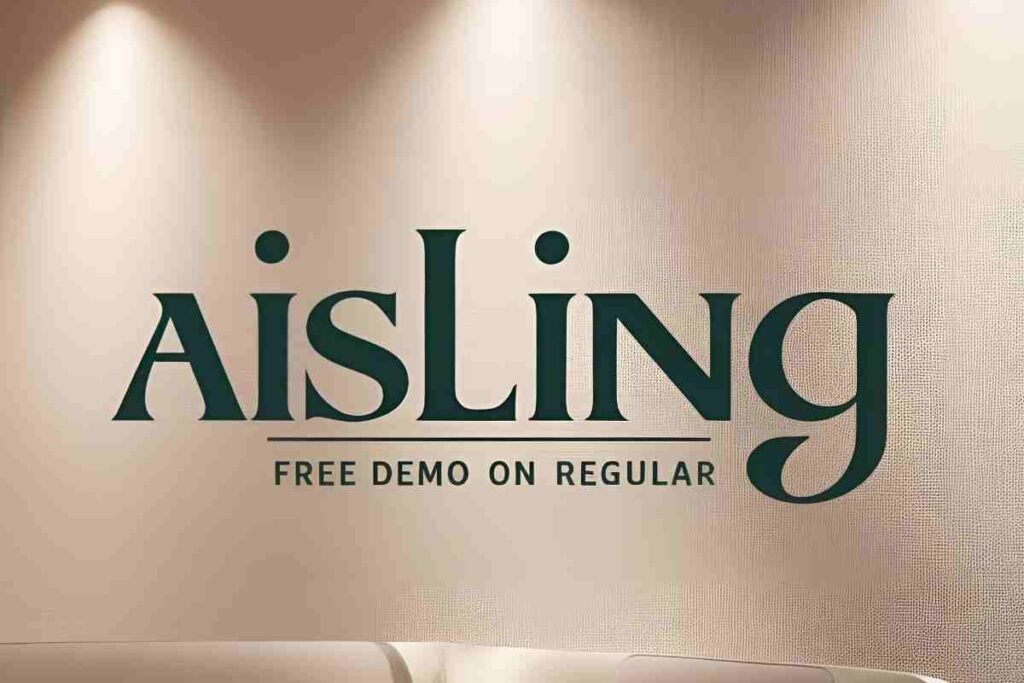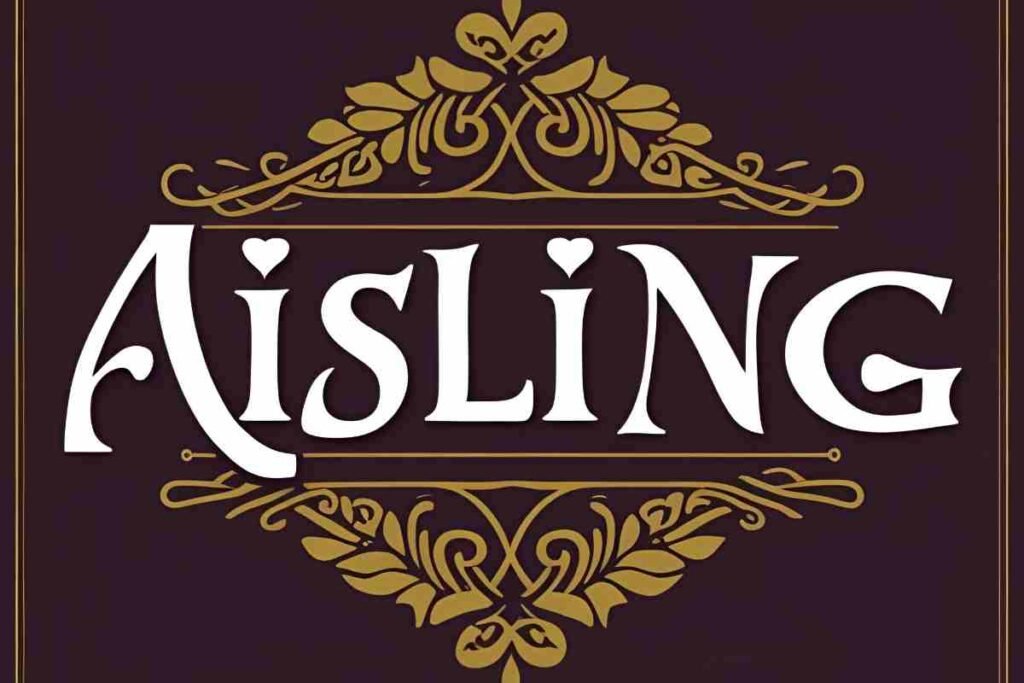
Aisling Free Demo is a meticulously designed handwritten font, blending smooth curves with an elegant, natural flow. Its graceful strokes and artistic charm make it a perfect choice for branding, invitations, logos, and various creative projects.
What is Aisling Free Demo Regular Font?
Aisling Free Demo Regular Font is a contemporary, elegantly designed typeface that exudes sophistication and style. Its clean, flowing strokes make it an excellent choice for a wide range of design projects, including graphic design, typography, and logo creation.
This display font offers a refined and modern aesthetic, enhancing the visual appeal of any composition. The free demo version is available for personal use, allowing designers to experience its artistic charm and versatility before opting for the full version.
Features of Aisling Free Demo Regular Font
Aisling Free Demo Regular Font boasts a sleek and stylish handwritten design, characterized by smooth curves and a natural flow. Its modern yet elegant appearance makes it ideal for branding, invitations, logos, and creative projects.
This font offers excellent readability, a refined stroke balance, and a unique artistic touch that enhances visual appeal. The demo version provides a glimpse into its versatility, making it a great choice for designers looking to add sophistication to their work.
Best Use Cases for Aisling Free Demo Regular Font
Aisling Free Demo Regular Font is widely used in various design fields. In graphic design, it is favored due to its stylish look and professional appeal. Web designers prefer it as a sans-serif font because of its readability and clean aesthetics, making websites more visually appealing.
For branding and logo design, companies choose Aisling for its modern font structure, helping to create a strong and unique brand identity. It is also a great choice for print design, including brochures, business cards, and posters, where high-quality prints are essential.
Technical Aspects of Aisling Free Demo Regular Font
Conclusion
Aisling Free Demo Regular Font is a versatile and elegant typeface that offers a balance of style and usability. Whether you are a web designer, graphic artist, or branding expert, this regular font is a must-try.
Its combination of modern aesthetics, high compatibility, and professional appeal makes it an excellent choice for creatives looking to elevate their typography game.
What is Aisling Free Demo Regular Font?
Aisling Free Demo Regular Font is a modern display font available for personal use in design projects.
What makes Aisling Free Demo Regular Font a good choice for designers?
Its clean font style, modern aesthetics, and high compatibility make it an excellent choice for graphic design, typography, and digital design.